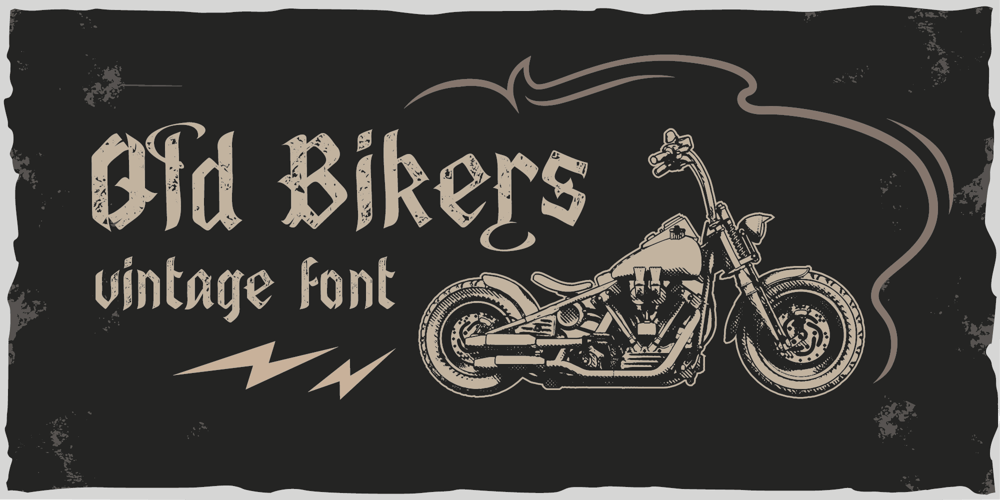
Old Bikers
Old Bikers font
Old Bikers Font Family was designed by Evgeny Dneprovsky and published by Fractal Font Factory. Old Bikers contains 5 styles and family package options. Introducing a new font – an old biker.It is a multilayer vintage typeface with 5 styles. The font contains stylistic alternatives for uppercase and lowercase letters. Numbers, punctuation and multilingual characters for each style.The font design is inspired by gothic, biker and rock culture.